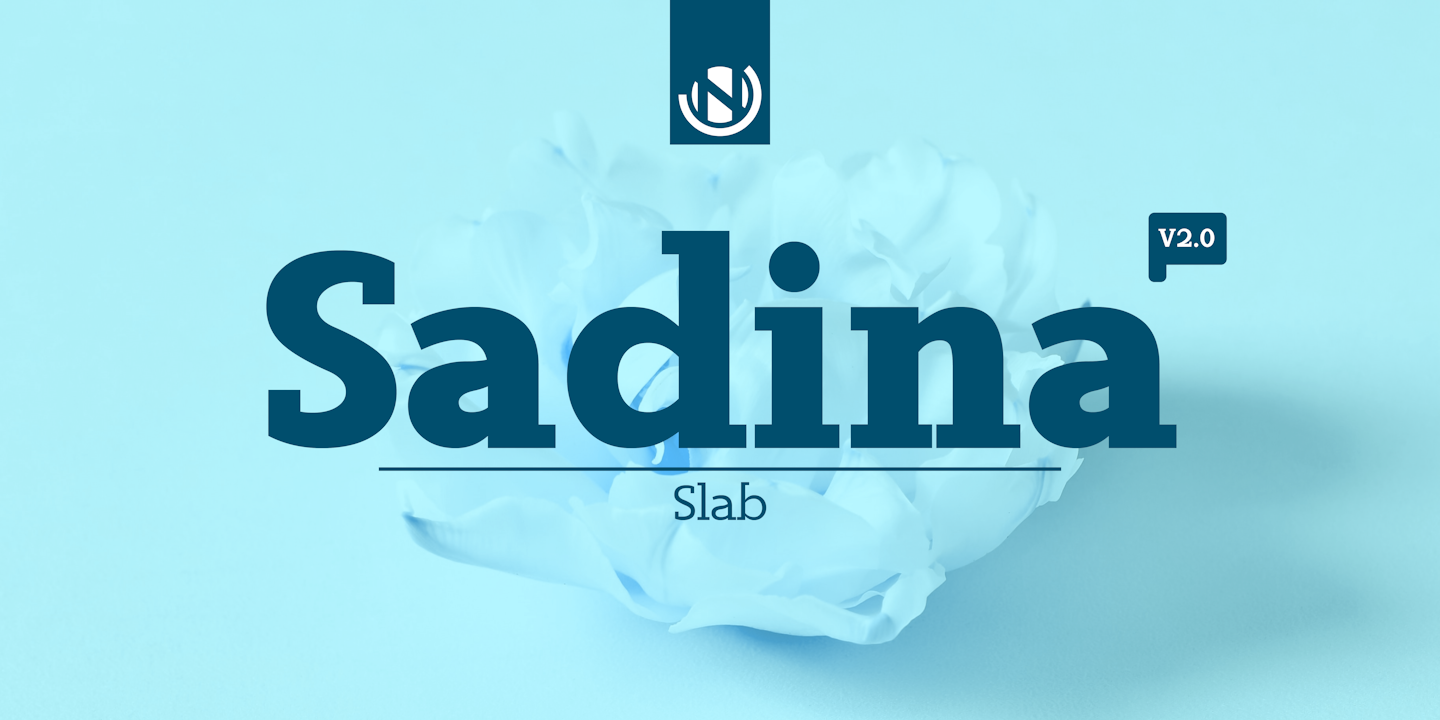
Sadina Slab
Designed by Yassine Abdi, Sadina Slab is a slab serif font family. This typeface has fourteen styles and was published by NumidiaType.
Sadina Slab™ inspired by the Sadina Font family.
designed with square serif typefaces in geometric structure, it combines geometric shapes with a classic sensibility, resulting in a visually appealing typeface, and it is multilingual, including Western European Latin and Cyrillic scripts.
It offers a total of 14 styles across 7 weights, providing flexibility for various design contexts for print documents, web projects, or designs.
This aesthetic appeal makes it a great choice.
This is the second version, V2.0, enhanced with different designs and more glyphs.
Displaying the beauty and characteristics of the Sadina Slab font family.